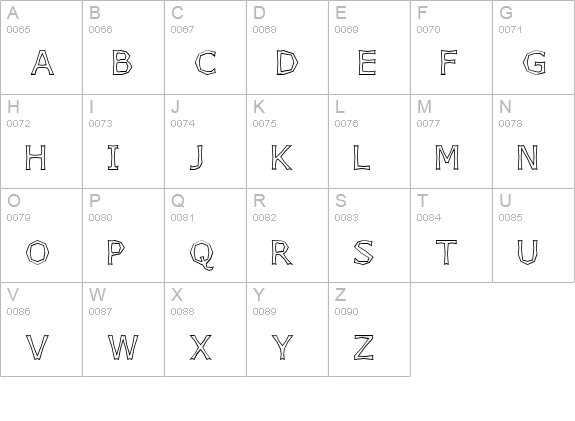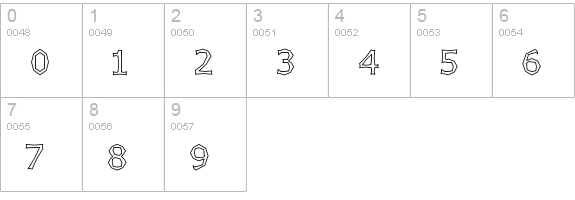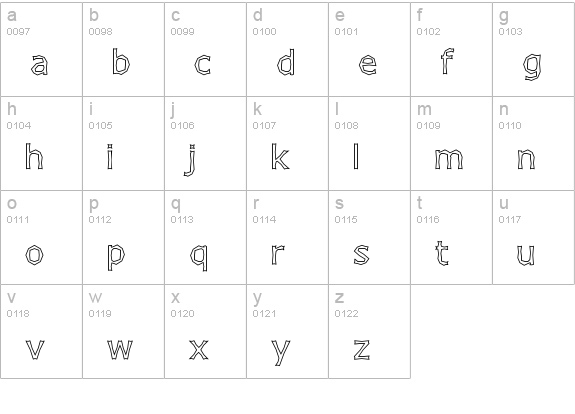
Chizzler Outline Font Details
Chizzler Outline font is a stunning display typeface that exudes a modern and edgy vibe. With its bold lines and sharp edges, this font is perfect for making a statement in your designs. Whether you're creating posters, logos, or branding materials, Chizzler Outline font will definitely catch the eye of your audience. The best part? Chizzler Outline font is available for free download at FontsMarket.com. This means you can easily access this stylish font and use it in your projects without any cost. Don't miss out on this fantastic opportunity to elevate your designs with Chizzler Outline font - download it today and let your creativity shine!